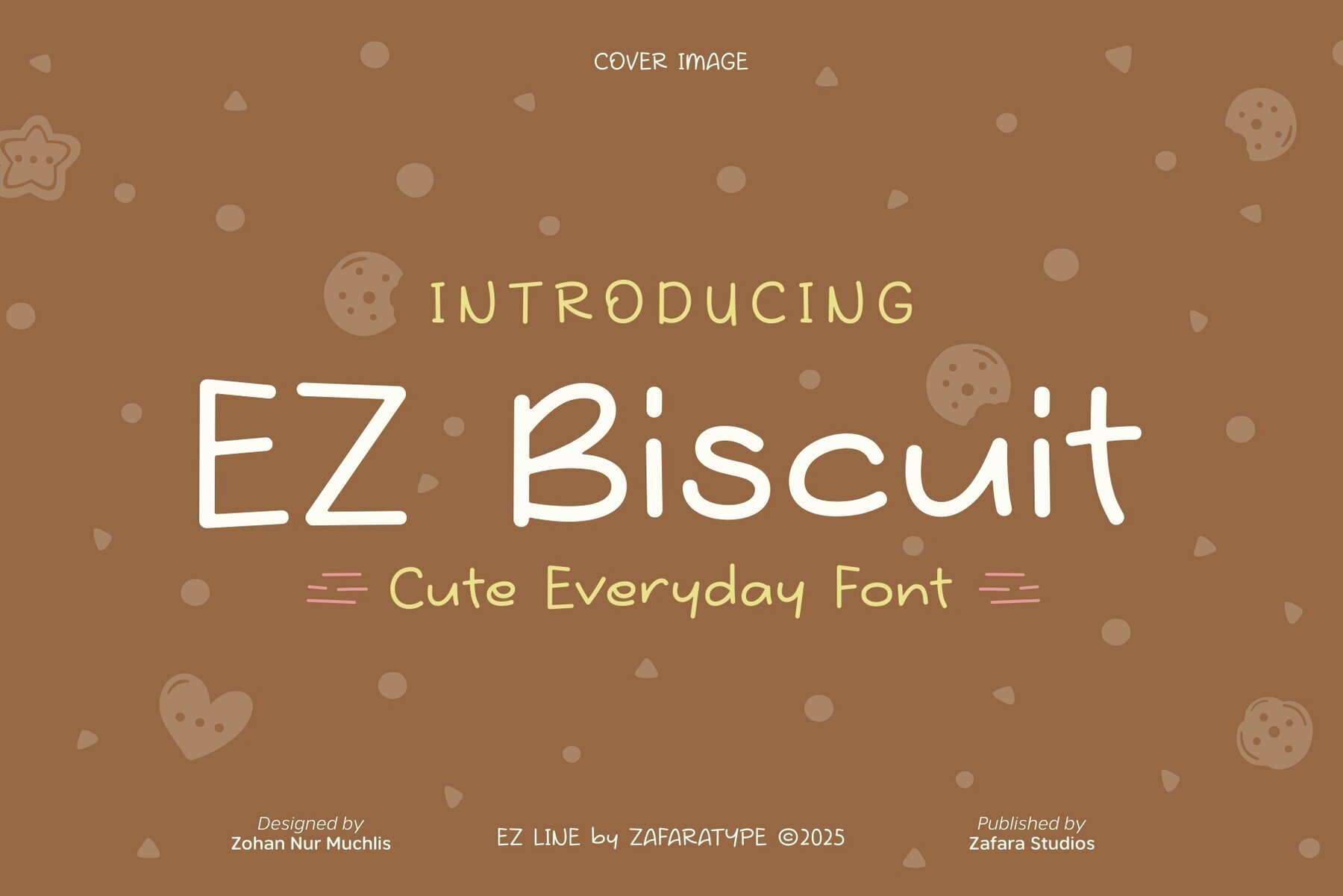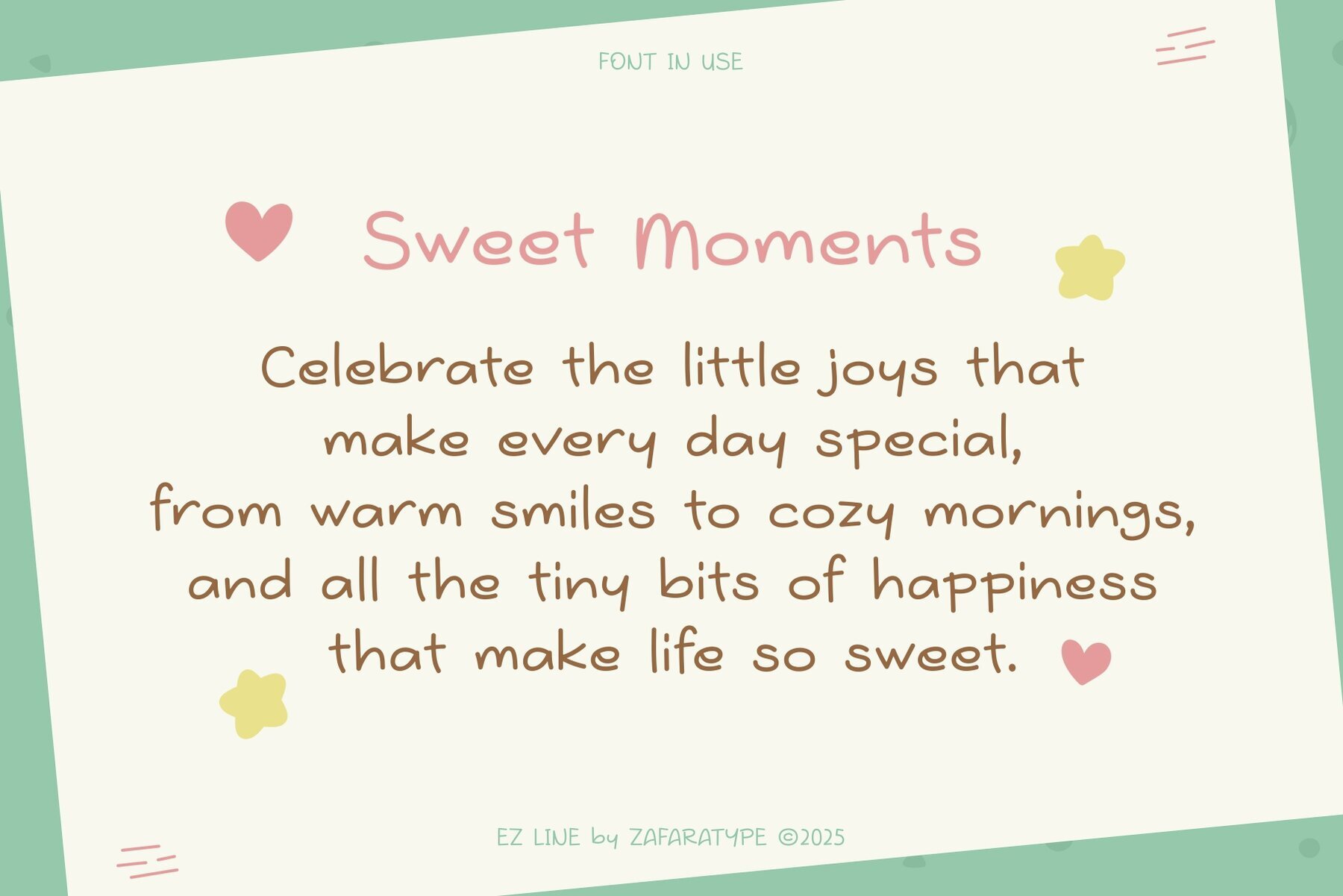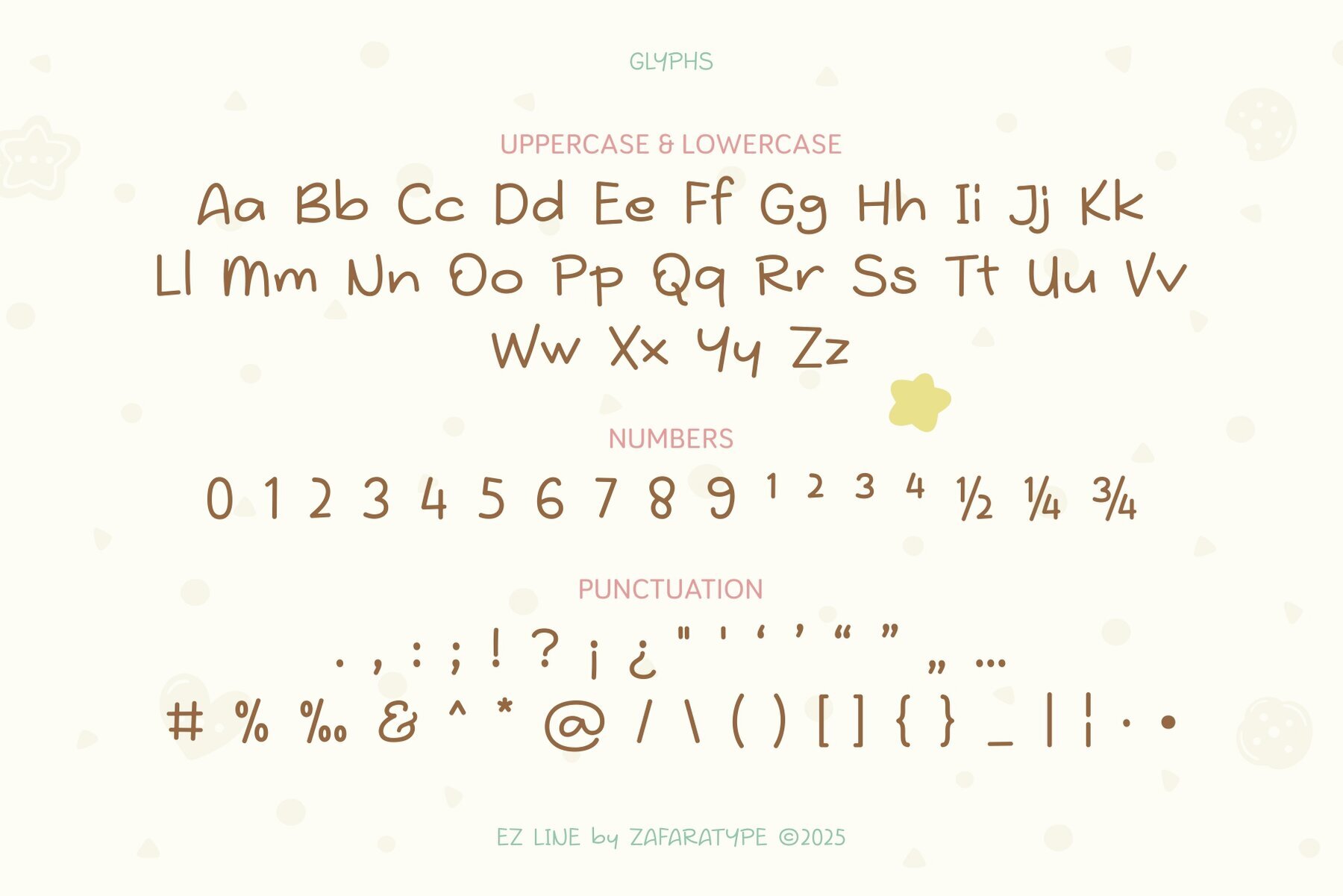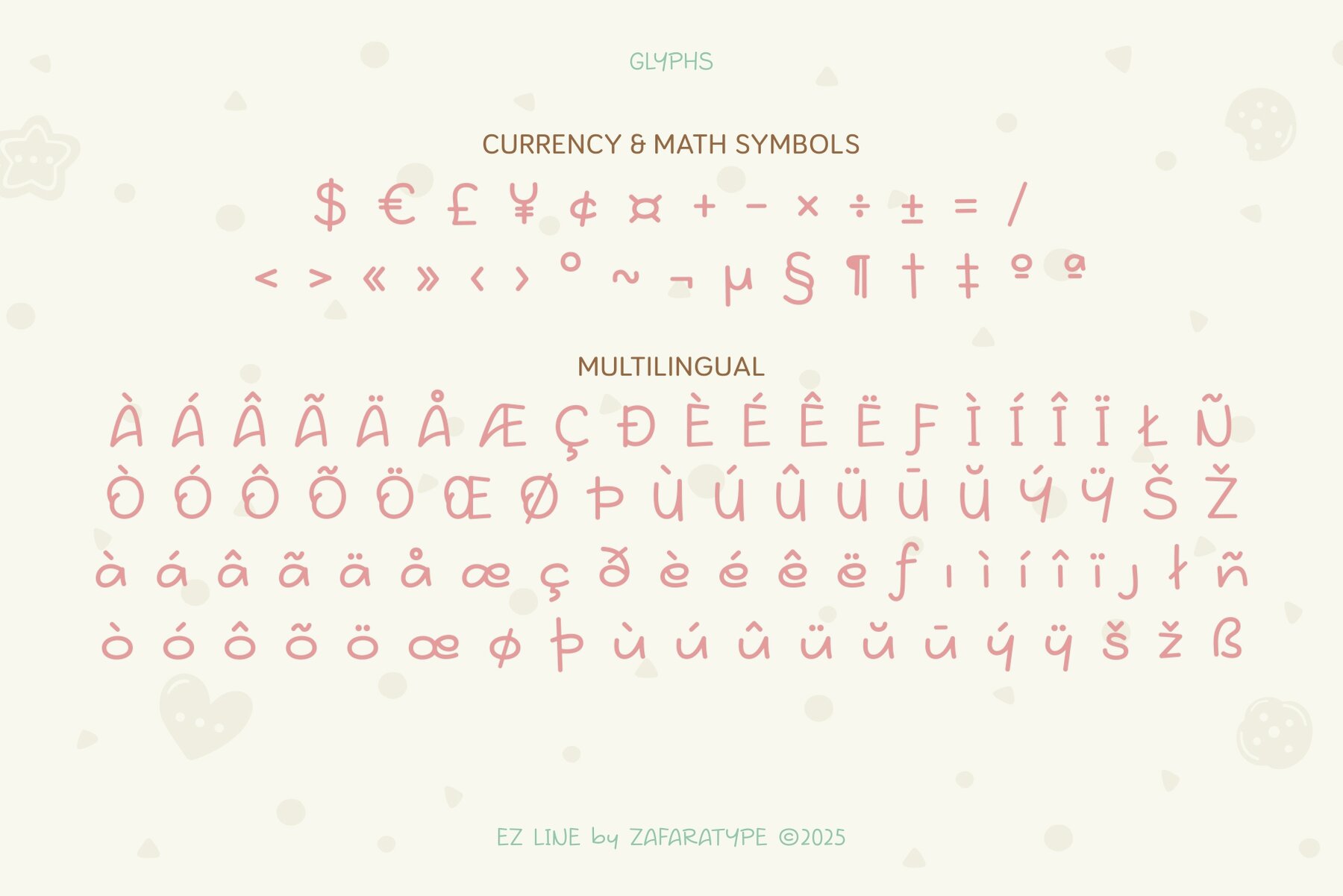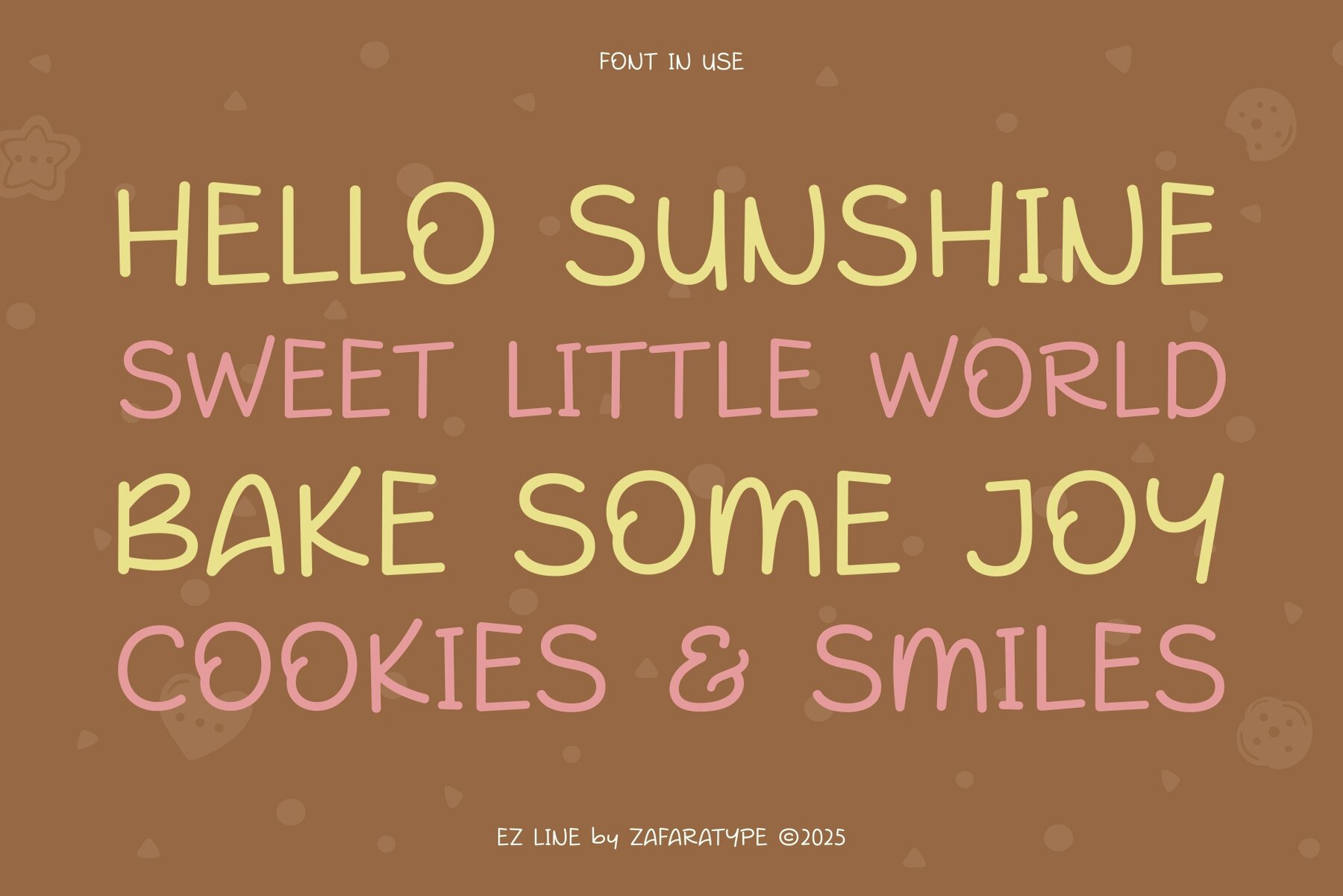
EZ Biscuit Font
EZ Biscuit
EZ Biscuit introduces a cheerful, handwritten style that brings warmth to every project. Its rounded forms and casual rhythm give your designs a lighthearted and inviting appearance. Whether you're designing logos, greeting cards, or children's projects, this font captures the informal charm of handwritten notes and creative doodles. Ideal for adding softness to quotes, journals, packaging, and personal messages, EZ Biscuit offers a welcoming tone that draws attention while maintaining readability. It’s well suited for both playful and sweet concepts, making each word feel approachable and genuine.EZ Biscuit Handwritten Font